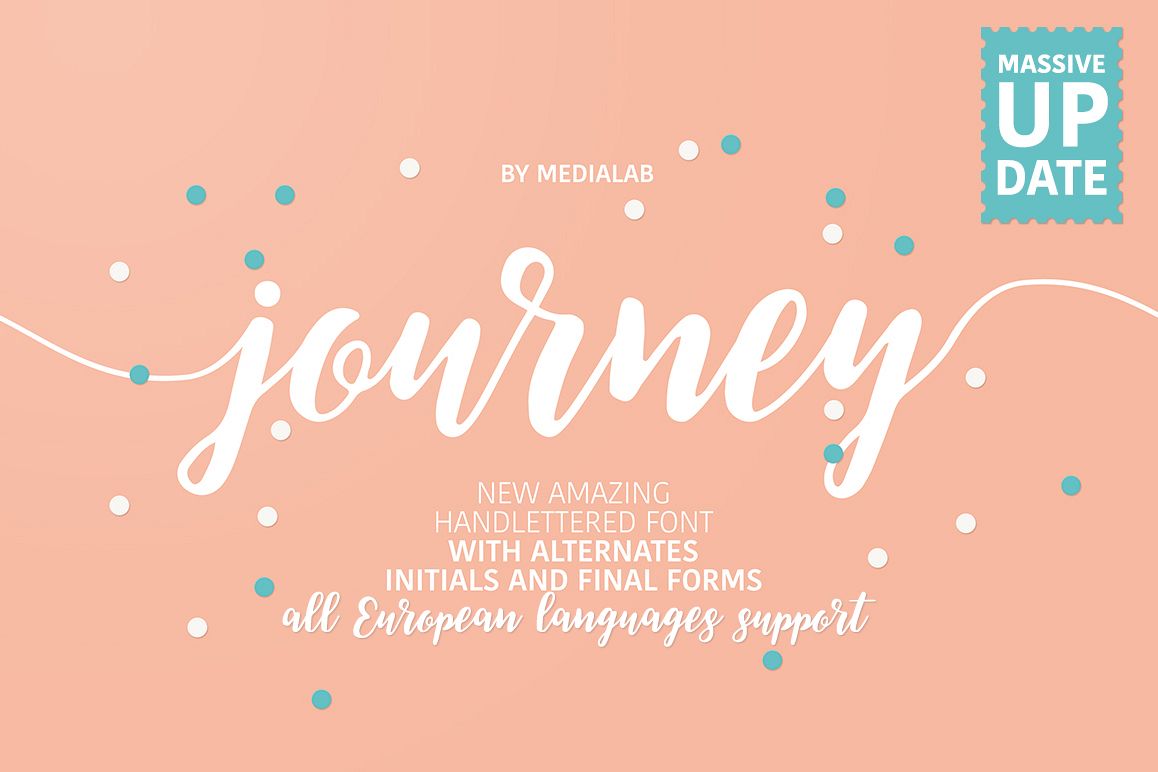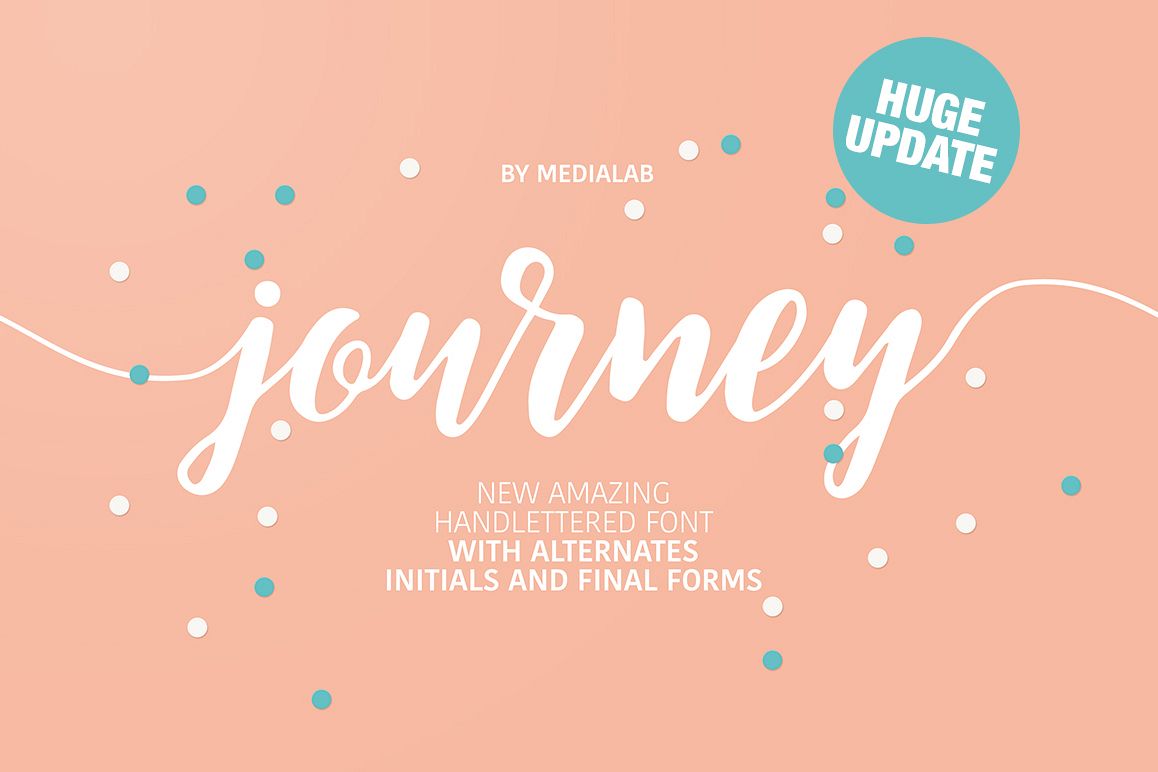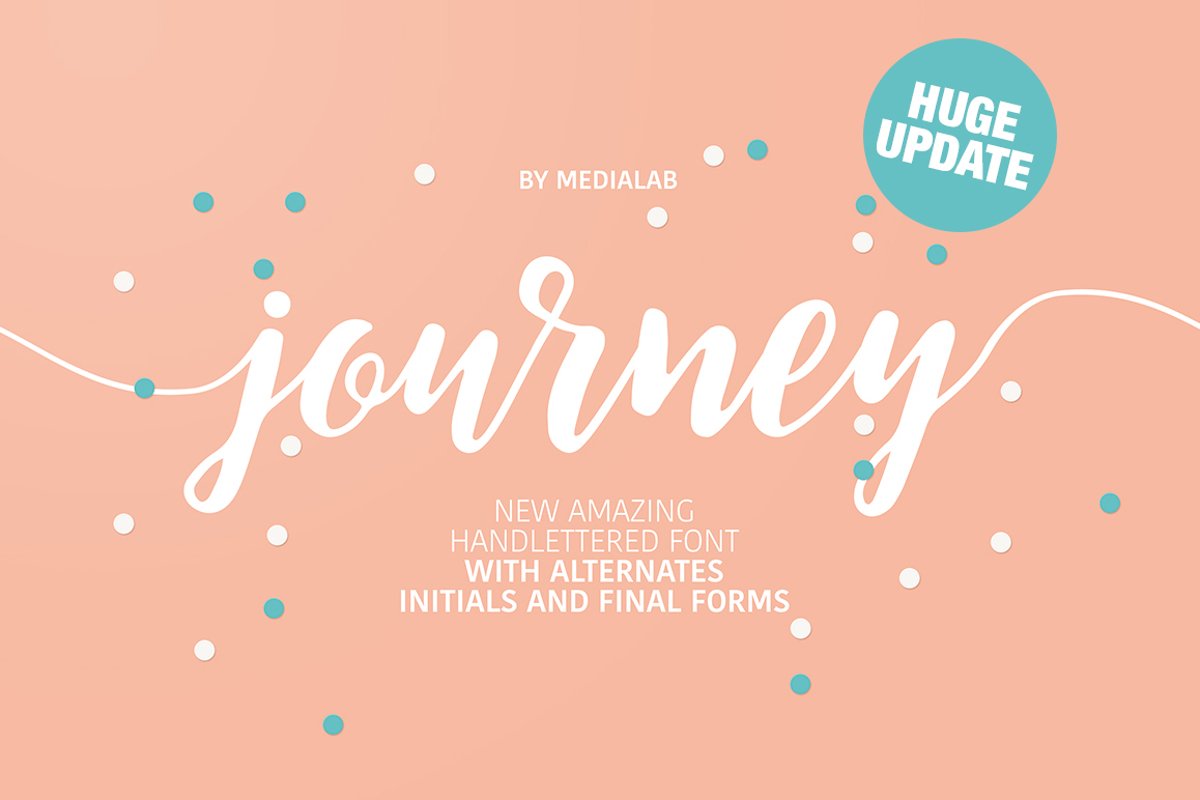
Journey handwritten script
The font is now divided into 5 versions.
- Journey Regular - Full character set + no tails and no problems + some swashes
- Journey Alt - Full alternative character set
- Journey Swashes 1 - ONLY TAILS (+ numbers and punctuation)
- Journey Swashes 2 - ONLY TAILS (+ numbers and punctuation)
- Journey Swashes 3 - ONLY TAILS (+ numbers and punctuation)
Now the font can be used in ANY TEXT EDITOR, without difficulties and dances with a tambourine. To add tails to the words you just need to select the Swashes font. The regular version will be written ALWAYS WITHOUT TAILS
• Support ALL European Languages